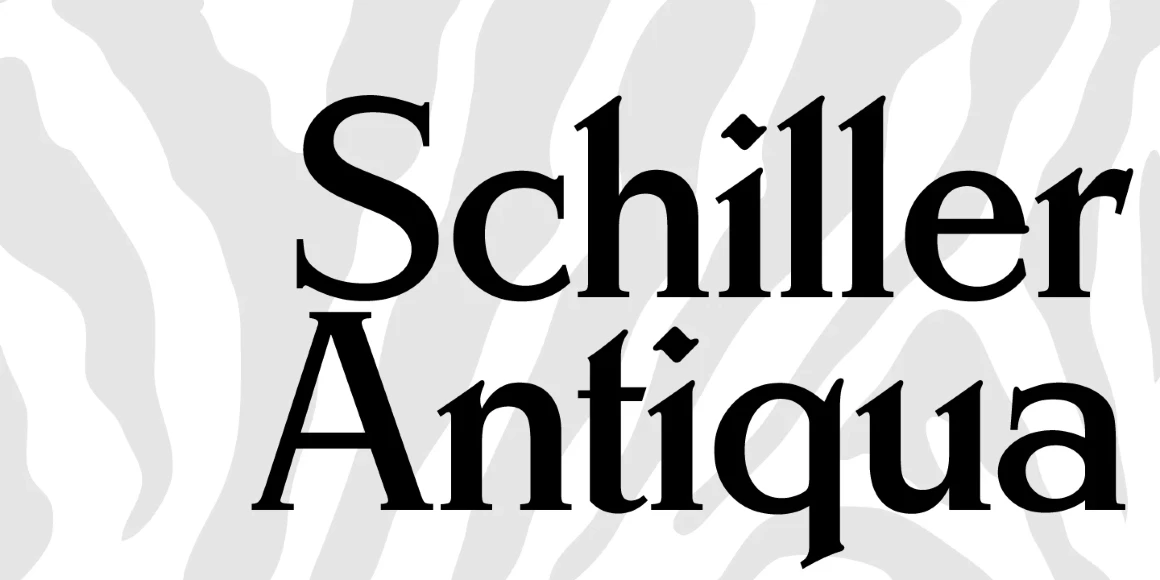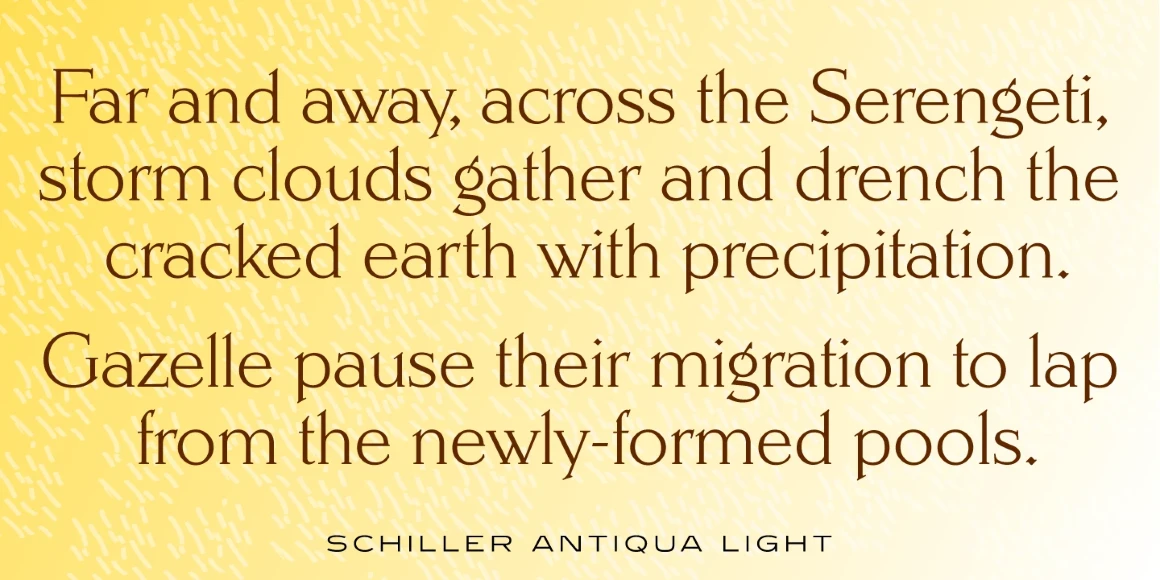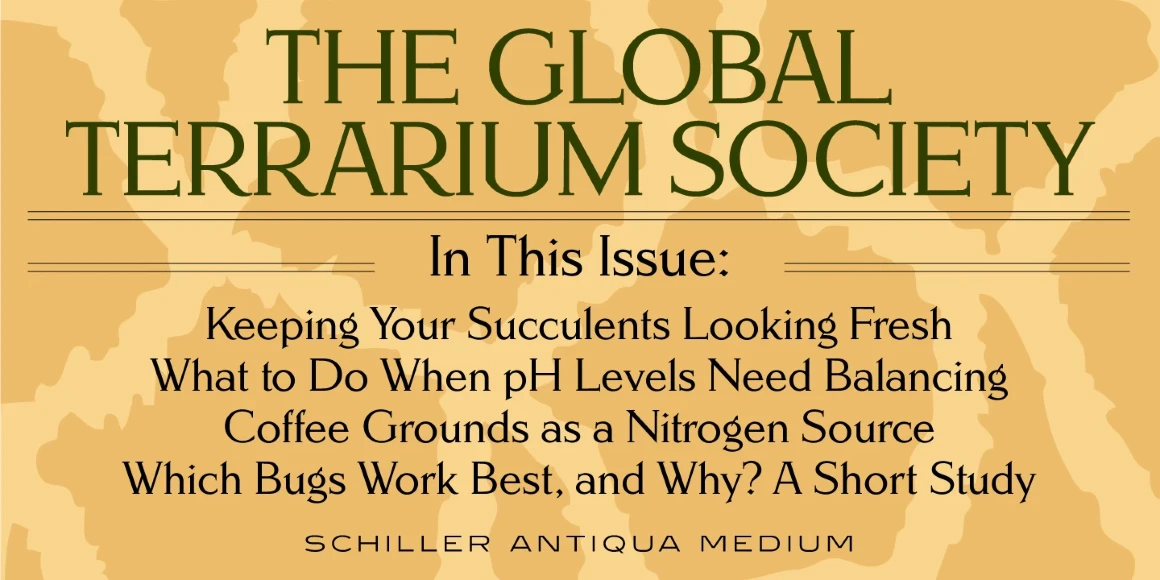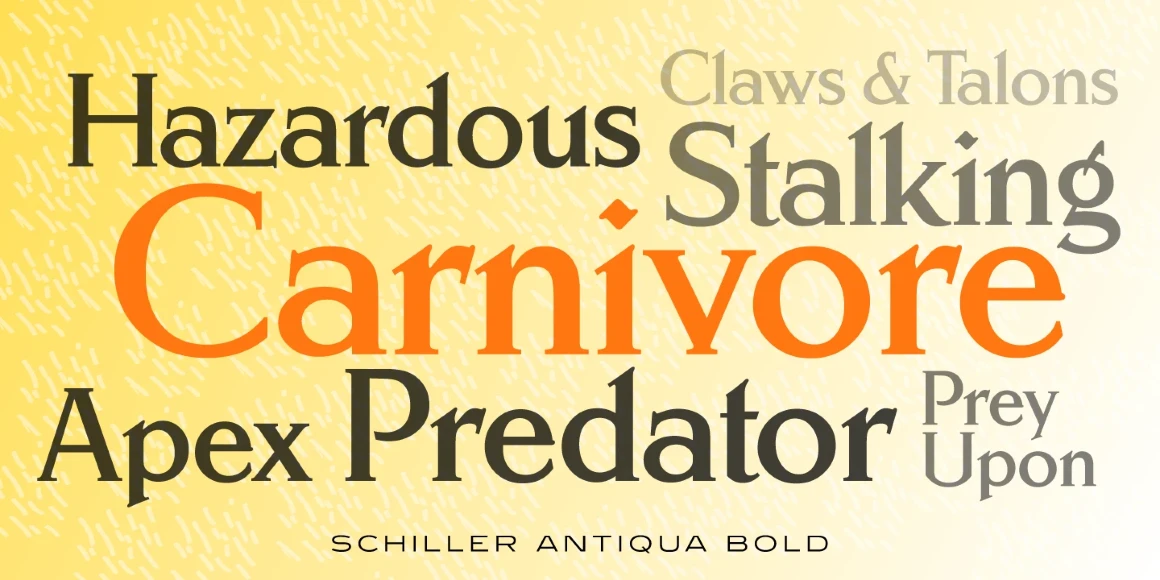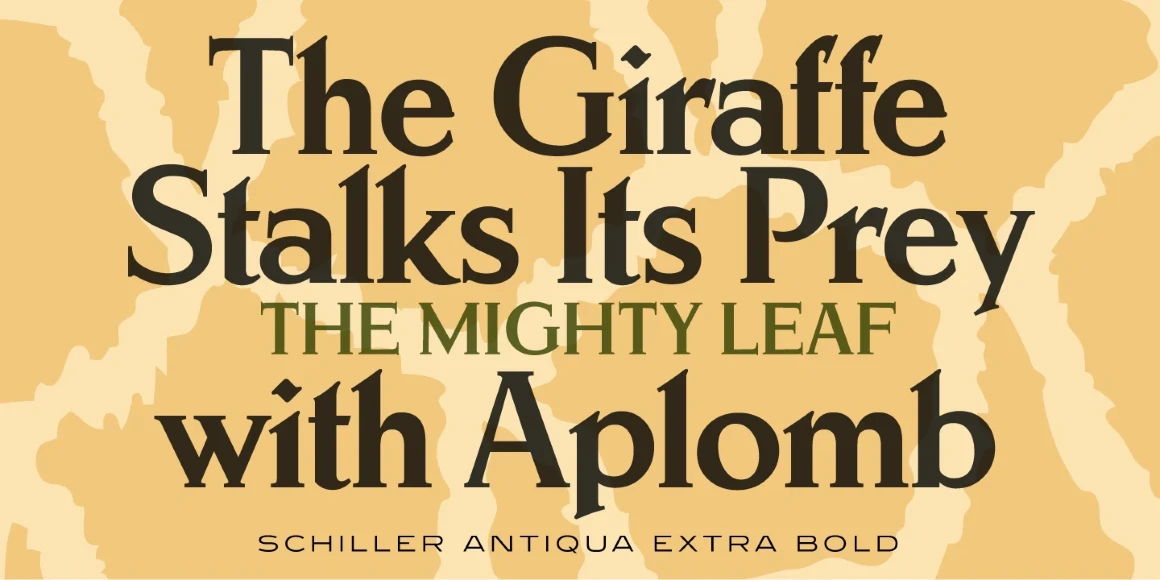
Schiller Antiqua
Schiller Antiqua is a decorative serif font family with a small x-height and distinctive letterforms. It was created and produced by Steve Jackaman (ITF) in 1993, and is based on “Hispalis” from Nacional, a Spanish foundry. During its operations, Nacional employed prestigious designers and was notable for its striking art deco typefaces. Schiller Antiqua, as its name suggests, has an antique look that stems from its 1900’s typographic influences. At paragraph size its serifs give it a crisp feel, and at display and subhead sizes its antique roots really shine through.